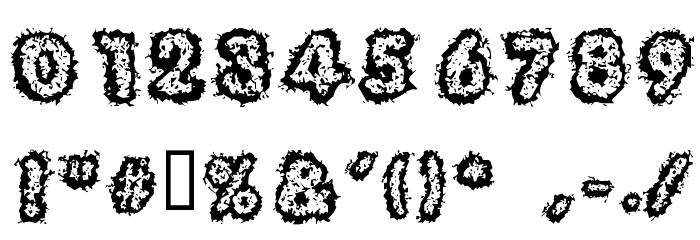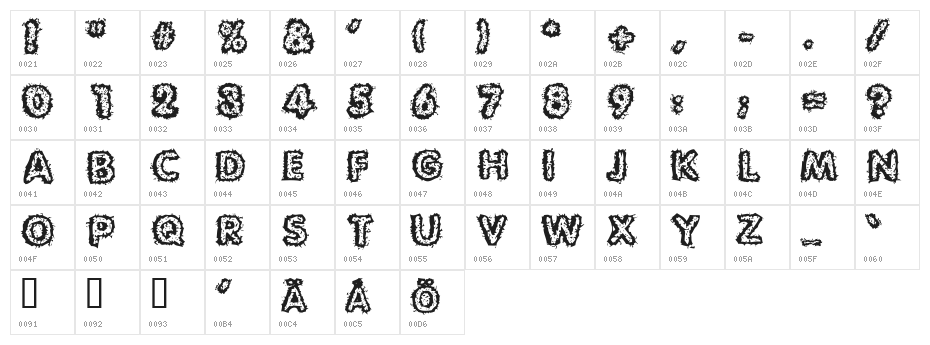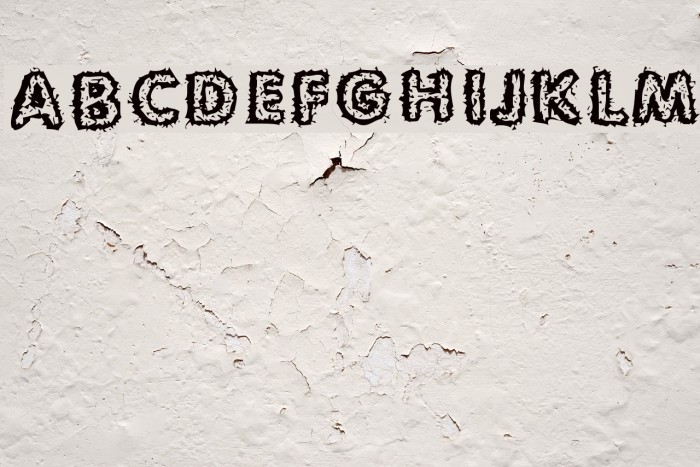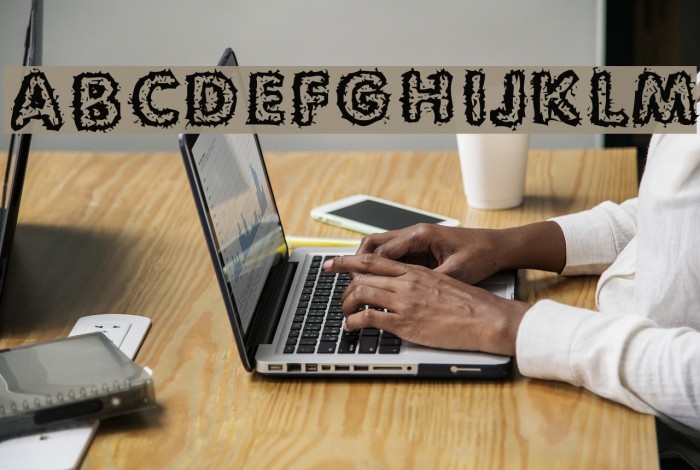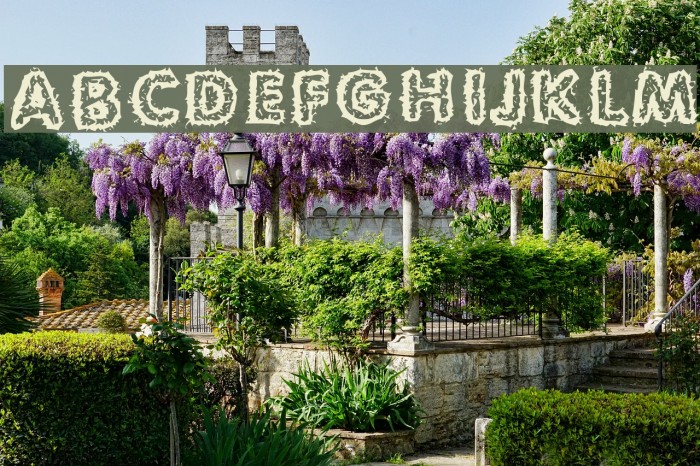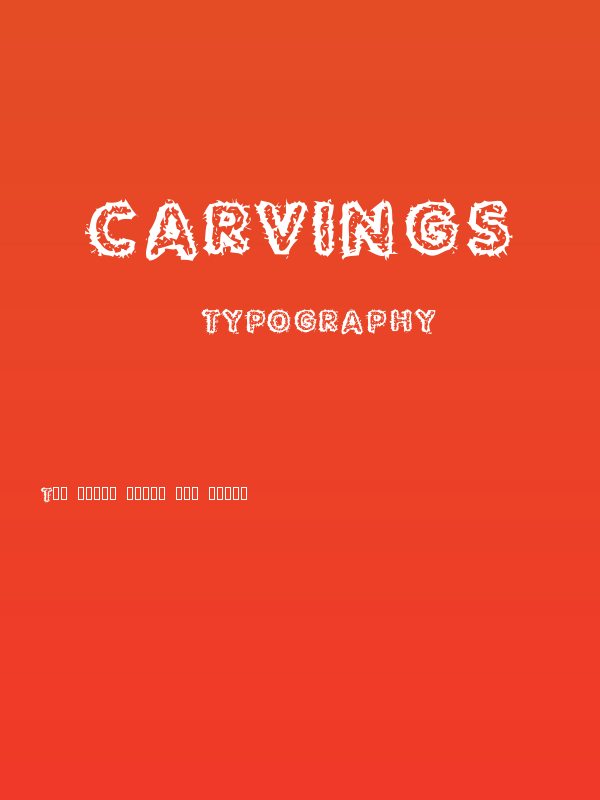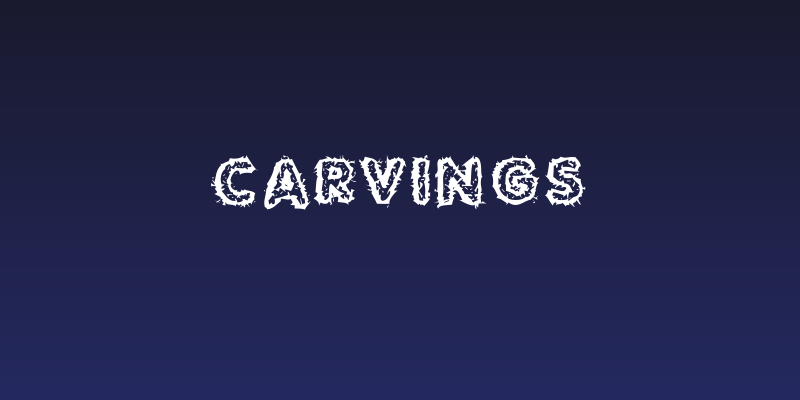
Carvings Font
Carvings Description
This font features a rugged, textured appearance reminiscent of hand-carved stone or wood. Each character is surrounded by irregular, jagged edges, giving it a bold and dynamic look. The uppercase letters are distinct and maintain a consistent height, while the numbers and special characters follow the same carved style, adding to the cohesive aesthetic. The font's unique texture makes it stand out, making it ideal for designs that require a raw, organic feel. Its boldness and decorative nature make it suitable for eye-catching headlines or artistic projects.
| Proposed Projects | Perfect for poster designs, album covers, branding for outdoor or adventure-themed products, and any project requiring a bold, organic aesthetic. |